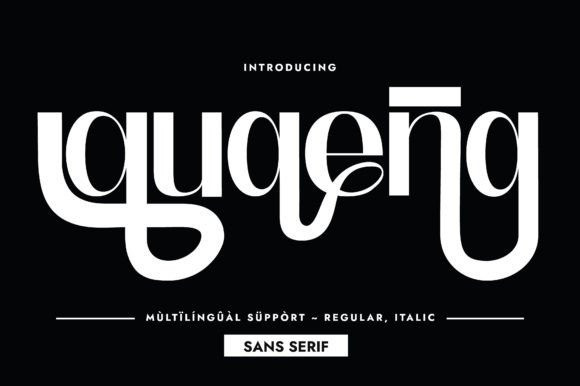
Quaena Font
Quaena Font is a minimalist, elegant, compressed, and eye-catching sans-serif typeface. Its tall and bold glyphs construction renders it a valid choice when you are working on a project that requires grabbing attention. Add it to your minimalist creative ideas and notice how many nice results can be easily obtained.